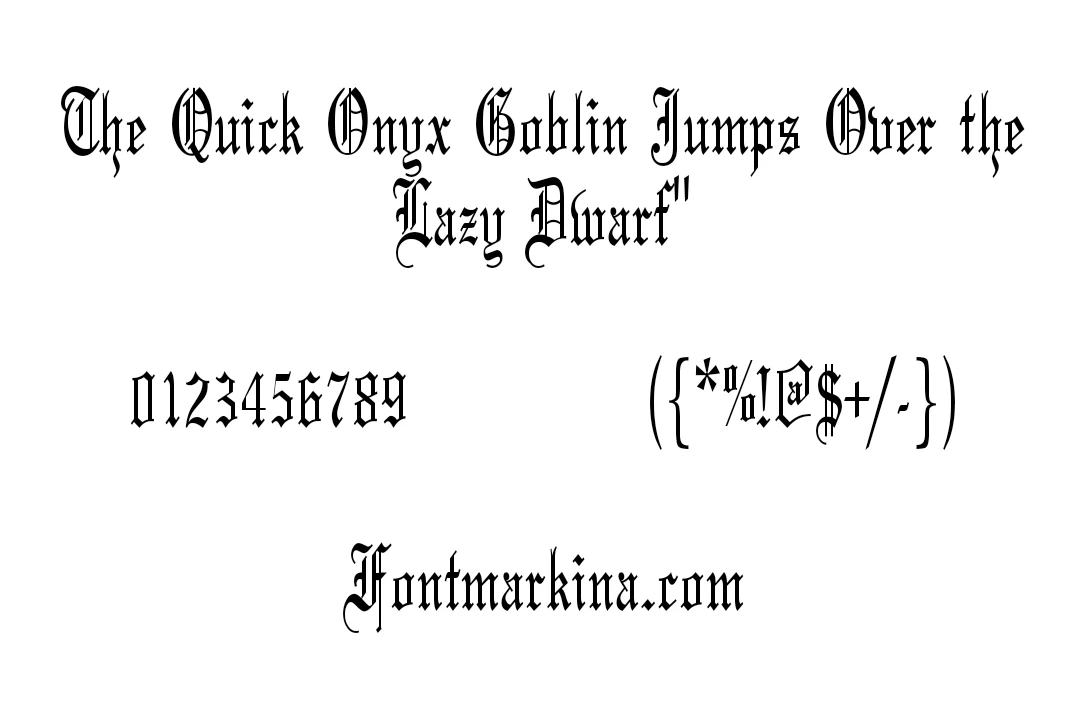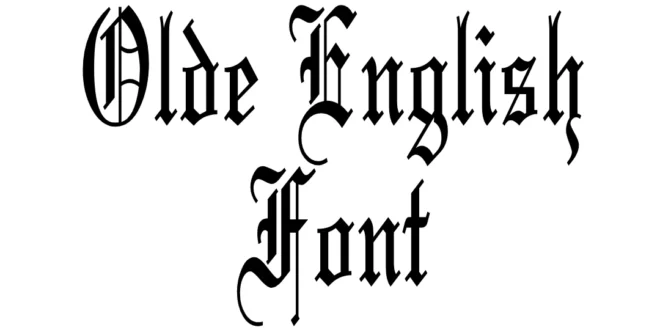
Olde English Font is a classic Blackletter typeface that comes from medieval writing traditions. It has sharp strokes and detailed shapes that give a strong historical feel. Many people also call it the Old English, Gothic, or Old English calligraphy font.
This font became popular in early printed books and church manuscripts. Its bold and decorative style helped it stand out in headings, titles, and formal documents. Today, it is still used when designers want a traditional or vintage theme.
This unique texture works best for titles, logos, posters, certificates, banners, and tattoo designs. Its heavy strokes make it perfect for designs where you want a strong and royal look.
It is not ideal for long paragraphs because they become hard to read. But for headings and highlights, it offers a bold, eye-catching style. Designers also use it for monograms, invitation cards, and decorative labels.
What is the Olde English Font?
It is a medieval-style Blackletter or Gothic font known for its sharp and ornate strokes.
Where can I use Old English Font?
Use it for logos, titles, tattoos, certificates, posters, banners, and historical-themed designs.